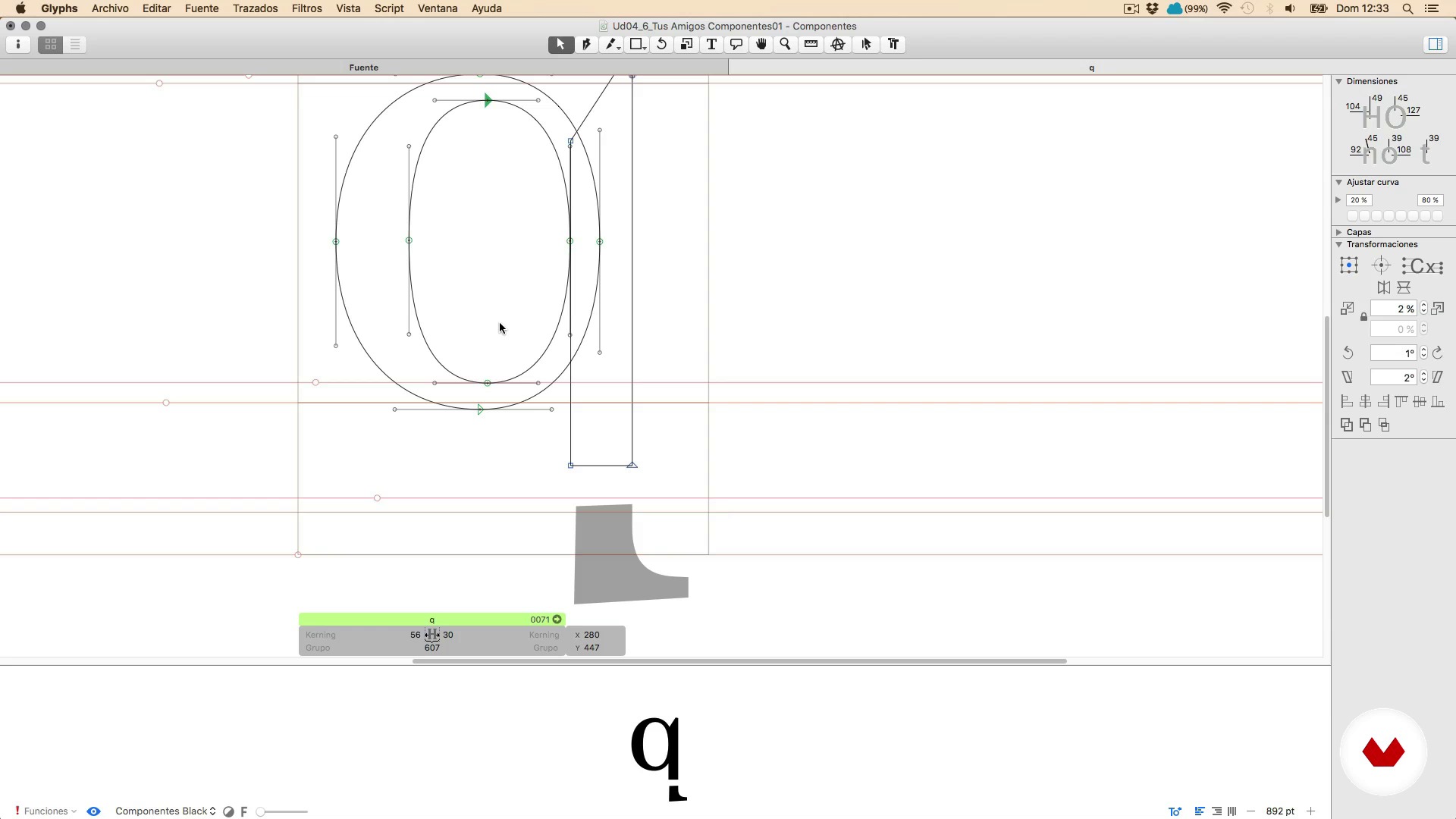
To the mess, drawing and trying letters 3
About the video: To the mess, drawing and trying letters 3
“And now with the last”
In this video lesson Juanjo López addresses the topic: To the mess, drawing and trying letters 3, which is part of the Domestika online course: Design a Digital Font from A to Z. Learn to design a font from scratch with Glyphs, Illustrator, and OpenType functions.
“If we get relegated... and add Apologies. I mistakenly added the Q and was informed that there are no components present here. Out. Added as a component and I bring my IP... All right. Here it is. I break it down Here. it's a geometric typeface in its own way. fitting perfectly for my needs and simplifying tasks. This circle suits my needs perfectly. I might even make it a component to simplify things. Then. i can just drag it around as needed. just move it around. But anyway. let's proceed correctly and efficiently. Proceed correctly and efficiently. let's do it. selection component B's re...”